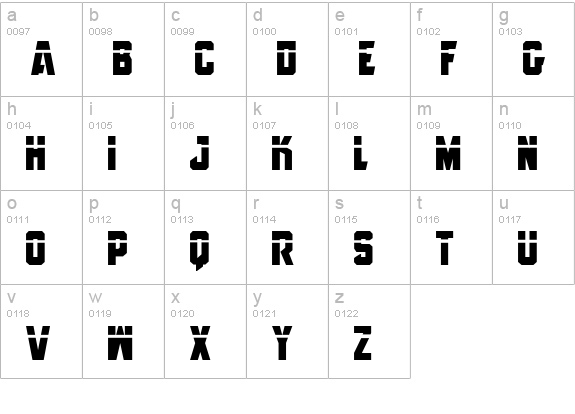
The Anitlles Laser font is a striking and futuristic typeface that exudes a sense of modernity and sophistication. Its sharp lines and sleek design make it perfect for projects that require a contemporary touch. The laser-cut appearance of the font adds a unique and edgy element to any design, making it stand out from the crowd. What's even better is that the Anitlles Laser font is available for free download at FontsMarket.com. This means you can easily incorporate this eye-catching font into your projects without breaking the bank. Whether you're working on a website, poster, logo, or any other design project, the Anitlles Laser font is sure to make a bold statement. Download it today and elevate your designs with this modern and dynamic typeface.